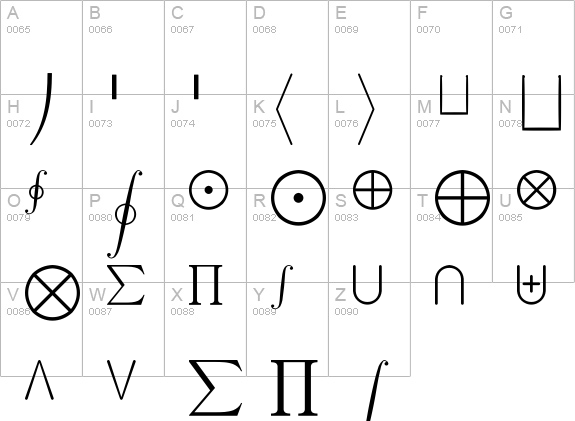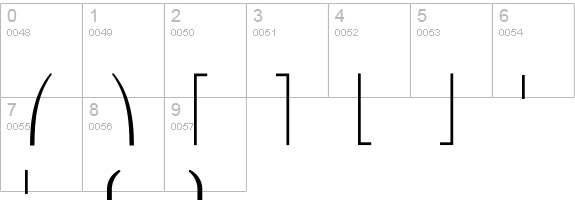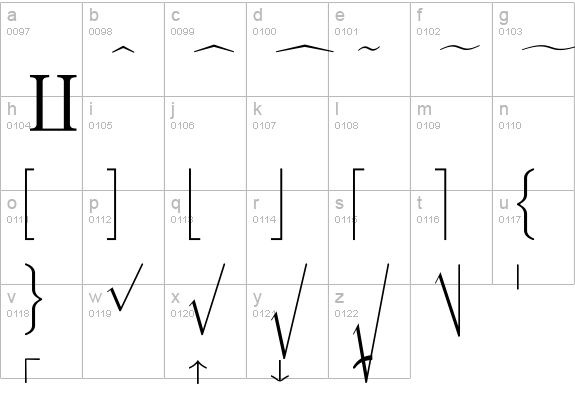
CM_Math Extension Font Details
The CM_Math Extension font is a meticulously crafted typeface designed for mathematical and scientific applications. With its sleek and modern design, this font is perfect for equations, symbols, and mathematical expressions. It features a comprehensive set of characters and symbols to cater to various mathematical needs. The CM_Math Extension font is not only functional but also aesthetically pleasing, making it a versatile choice for academic papers, presentations, and technical documents. Best of all, this font is completely free to download at FontsMarket.com. Whether you are a student, teacher, researcher, or professional, you can easily access and utilize the CM_Math Extension font for all your mathematical and scientific projects. Enhance the clarity and professionalism of your work with this exceptional font that is both practical and visually appealing. Download the CM_Math Extension font today and elevate the quality of your mathematical and scientific content.